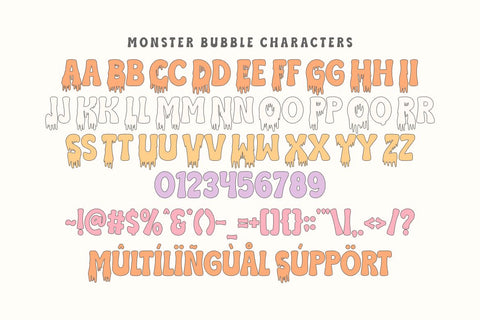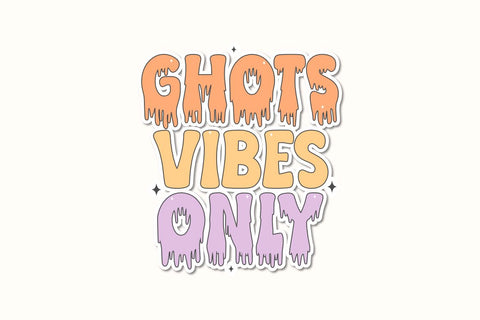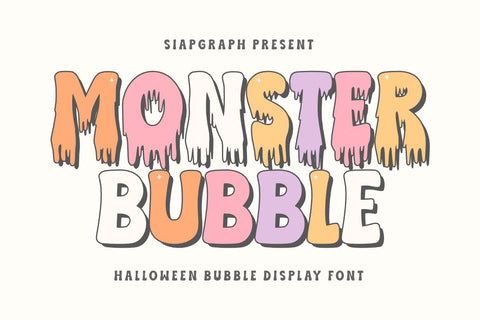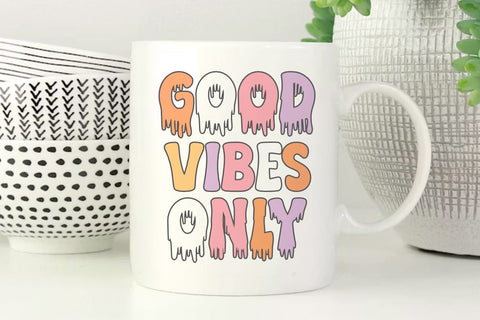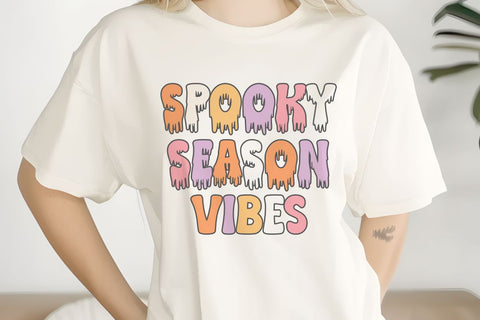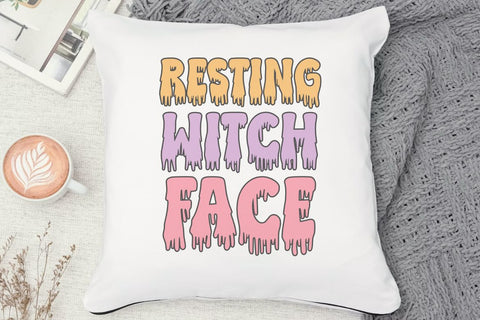
Monster Bubble - Playful Halloween Display Font
Monster bubble is a unique Halloween bubble display font that blends spooky elements with a cute and playful chunky aesthetic. Featuring bold, rounded letterforms accented with dripping effects, this typeface is specifically crafted to bring a fun, festive, and eye-catching vibe to your seasonal designs. Its clean and solid construction is optimized for the crafting community, ensuring a seamless and frustration-free experience for vinyl cutting, sublimation, and high-quality digital printing.
Perfect for: creating high-impact SVG cut files, Halloween party invitations, trick-or-treat bags, spooky-cute t-shirts, festive stickers, autumn mugs, and playful social media graphics. Whether you are a professional Print on Demand (POD) seller or working on a special DIY holiday project, this font provides the ideal balance of readability and whimsical charm.
Great for holiday themes such as Halloween, Spooky Season festivals, Children's costume parties, and Fall celebrations, adding a sweet, cheerful, and festively spooky personality to all your seasonal design collections!